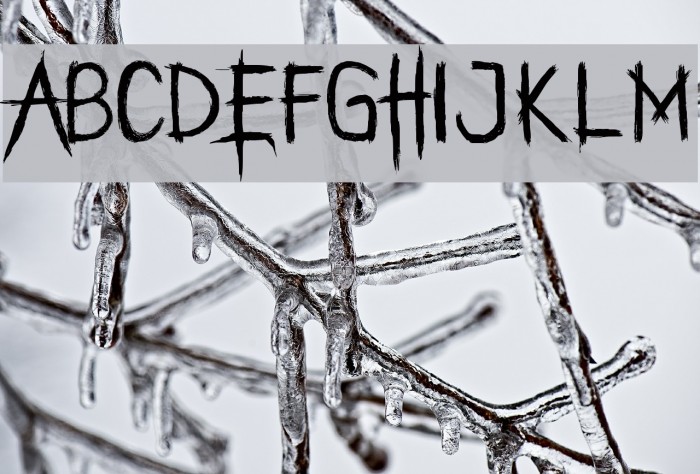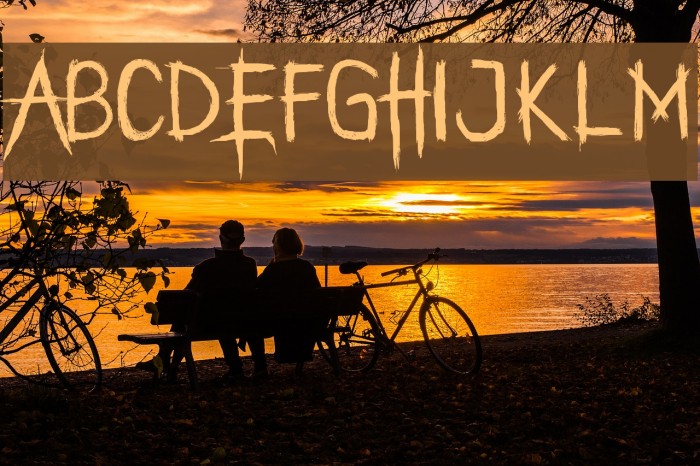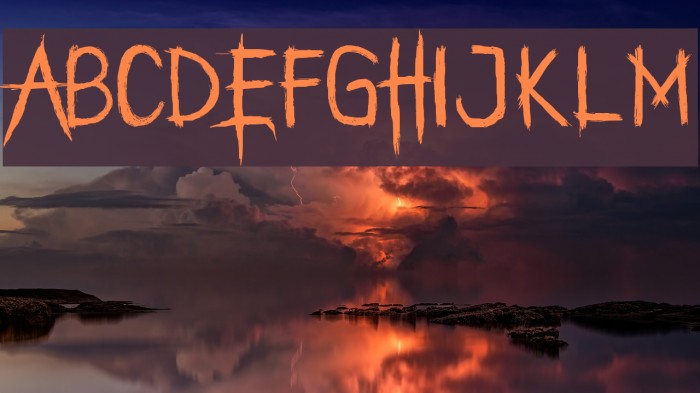
AnotherScream Font
This font exudes a raw, edgy aesthetic with its jagged and irregular strokes, reminiscent of hand-drawn or distressed lettering. The uppercase letters are tall and narrow, with sharp angles and uneven lines that create a sense of urgency and intensity. The lowercase letters maintain this rugged style, offering a consistent yet dynamic appearance. Numbers and special characters follow the same design principles, ensuring a cohesive look across all elements. This font is ideal for projects that require a bold, attention-grabbing typeface with a rebellious or unconventional vibe.
A jagged, edgy font with irregular strokes and a hand-drawn appearance.
- Font: AnotherScream
- Proposed Projects: Perfect for album covers, horror movie posters, edgy branding, and streetwear designs.
- Character Spacing: Tight
- Overall Style: Edgy, Raw, Distressed